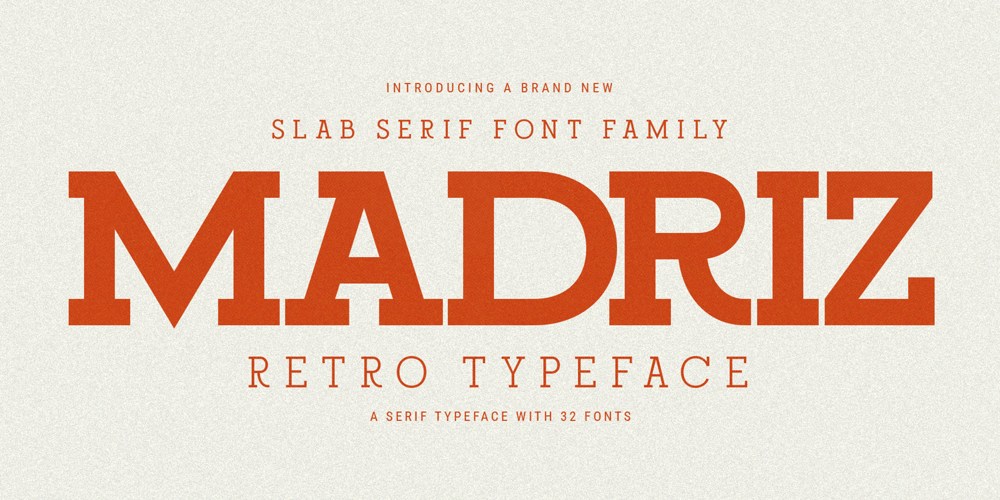
Madriz Font Family was designed by SilverStag and published by SilverStag. Madriz contains 32 styles and family package options. Introducing Madriz, a slab serif font with a retro feel that’s perfect for any project that needs a touch of old-school charm.With over 32 fonts in one font family, Madriz offers a wide range of styles to suit any need. You can choose from Thin to Black weights and Regular to Extra Expanded widths to create your perfect look.Madriz is inspired by the old-school signage of Madrid, Spain. The name “Madriz” is actually the affectionate nickname that Madrileños, the people of Madrid, gave to their city. The font’s bold, blocky letters capture the essence of Madrid’s vibrant and historic streets.Madriz’s versatile nature makes it a great choice for a wide range of projects. Its bold, retro style is perfect for showcasing heritage brands or giving a modern touch to classic designs. Madriz can also be used to create a sense of nostalgia, making it ideal for retro-themed projects or campaigns.Here are some of the ways you can use Madriz: Titles and headings: Madriz’s bold, eye-catching style is perfect for titles and headings. Text blocks: Madriz’s wide range of weights and widths makes it suitable for text blocks, from body copy to large paragraphs. Logos and branding: Madriz’s retro charm makes it a great choice for logos and branding. With its 32 font styles and support for over 90 languages, Madriz is an incredibly powerful tool for any designer. It can be used to create a variety of looks, from classic and elegant to modern and edgy. Whether you’re working on a print project, a web design, or an app, Madriz has the potential to make a lasting impression.Madriz is the perfect font for anyone who wants to add a touch of old-school charm to their designs. With its wide range of styles and features, Madriz is sure to make a statement in any project.Would you like to get 5 completely free fonts worth over $75? No tricks, no hidden words, terms or anything. Just subscribe to my newsletter, make sure to check your email to approve the subscription, add me to your contacts so that the emails don’t end up in spam folder and you will get 5 fonts for free. The fonts are packed with alternates, ligatures and some even come with extra goodies.Happy creating everyone!